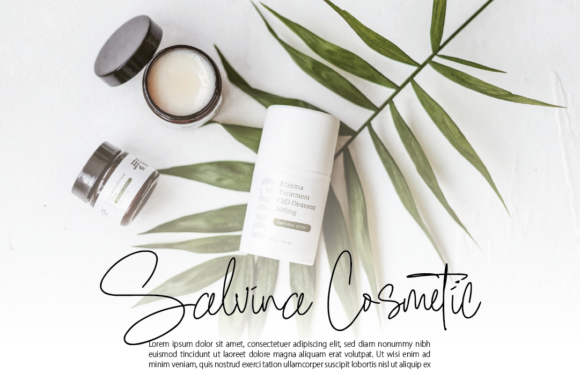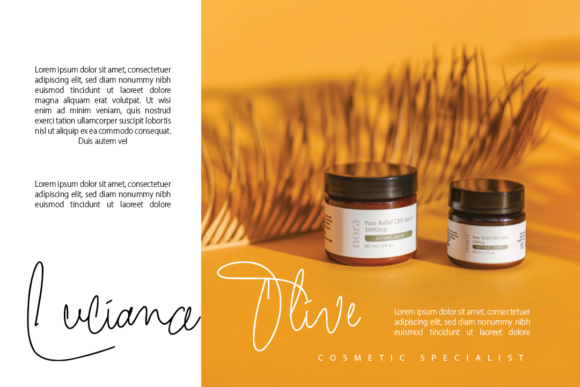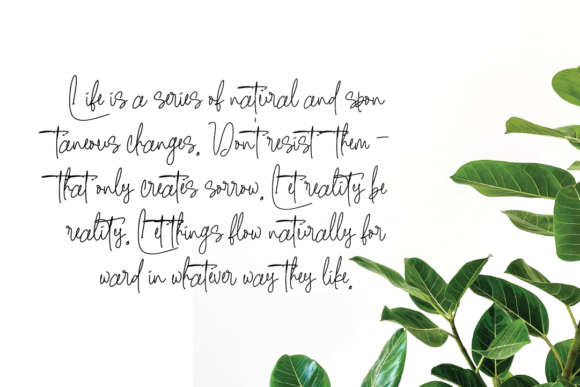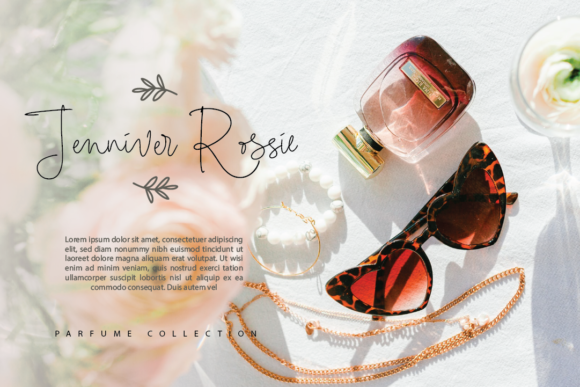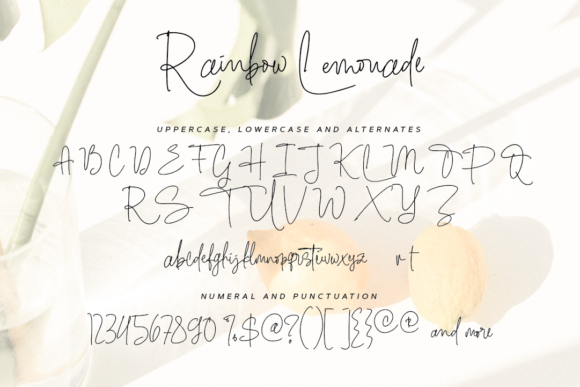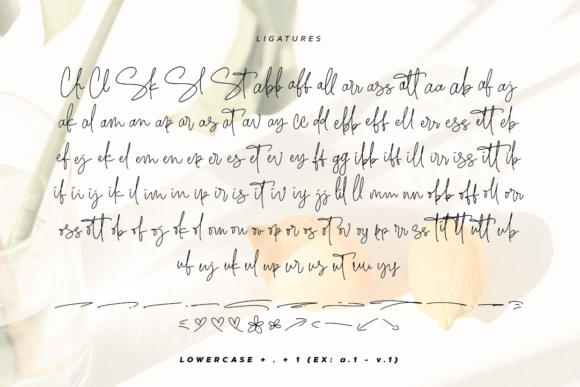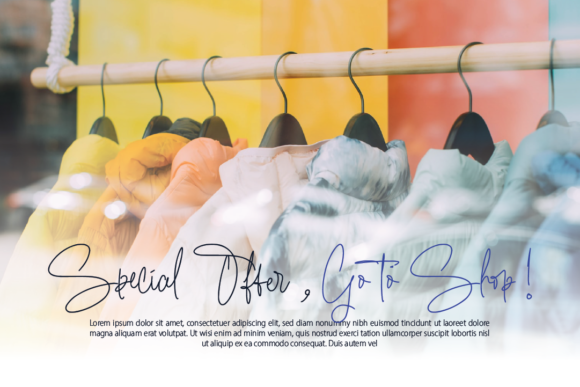
Rainbow Lemonade Font
About Rainbow Lemonade Font
Introducing “Rainbow Lemonade,” a beautiful script font that adds a refreshing and vibrant touch to your creative projects. With its lively and stylish aesthetic, Rainbow Lemonade is a versatile font suitable for a myriad of applications.
Whether you’re working on blog posts, logos, branding, ads, invitations, greeting cards, planners, photo albums, decorations, or any other project, Rainbow Lemonade infuses a sense of energy and playfulness into your designs. The script style of this font radiates a cheerful and modern vibe, creating a visually appealing and dynamic text.
In blog posts and ads, Rainbow Lemonade becomes a captivating element that injects a burst of color and freshness. Logos and branding benefit from the font’s beautiful script, offering a lively and memorable visual identity. Invitations and greeting cards take on a vibrant charm, setting a positive and upbeat tone for any occasion.
Planners and photo albums gain a modern and stylish edge with the addition of Rainbow Lemonade, infusing your layouts with a contemporary and artistic feel. Decorations, whether for digital or print applications, acquire a trendy and appealing quality, making any space or design more vibrant.
Rainbow Lemonade stands out as more than just a font—it’s a design tool that brings a splash of color and modern flair to your projects. Its adaptability and stylish script make it a valuable asset for various creative endeavors. Choose Rainbow Lemonade to infuse your designs with a burst of freshness and vibrancy, turning each project into a visually appealing and memorable piece of art.